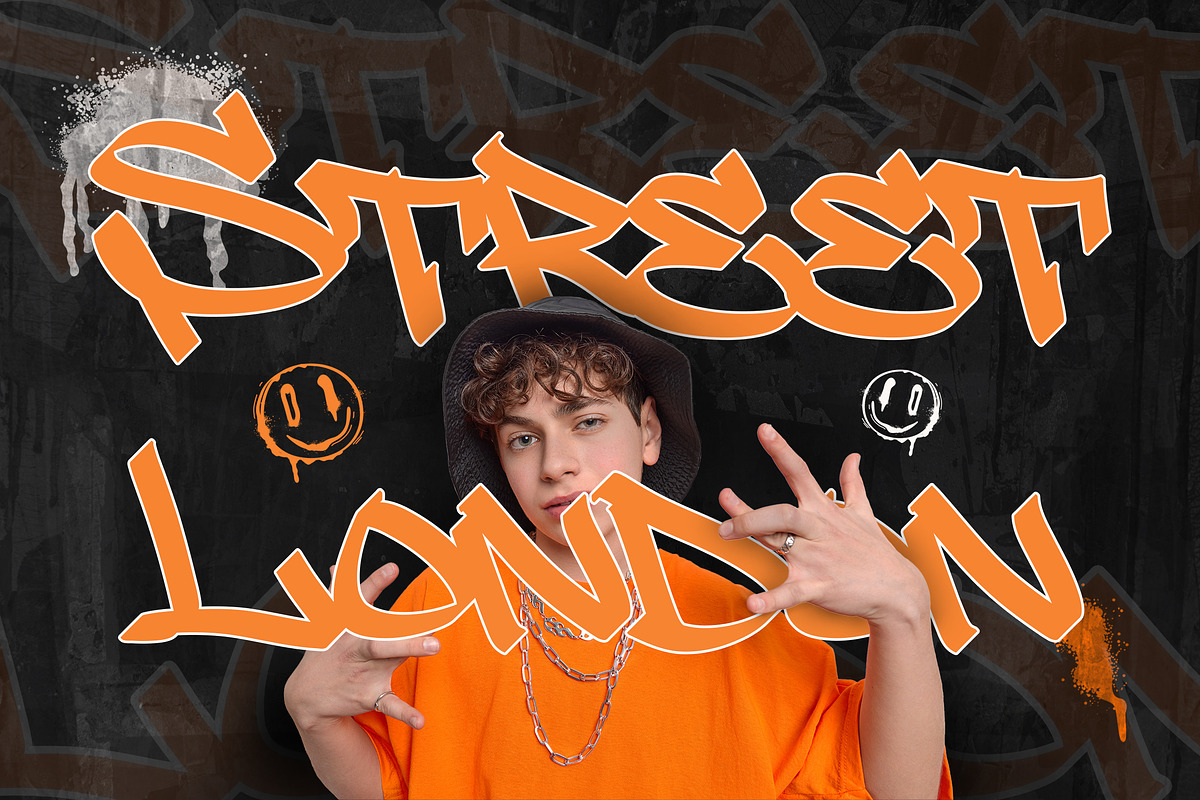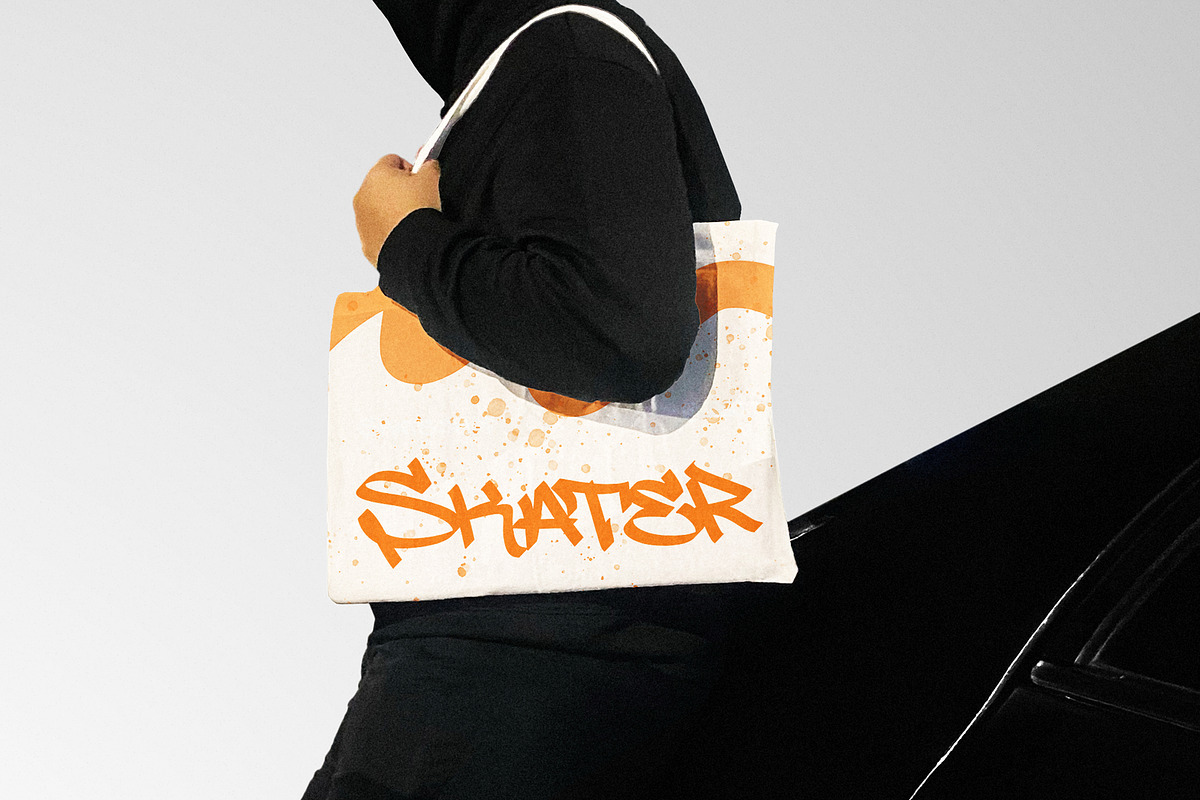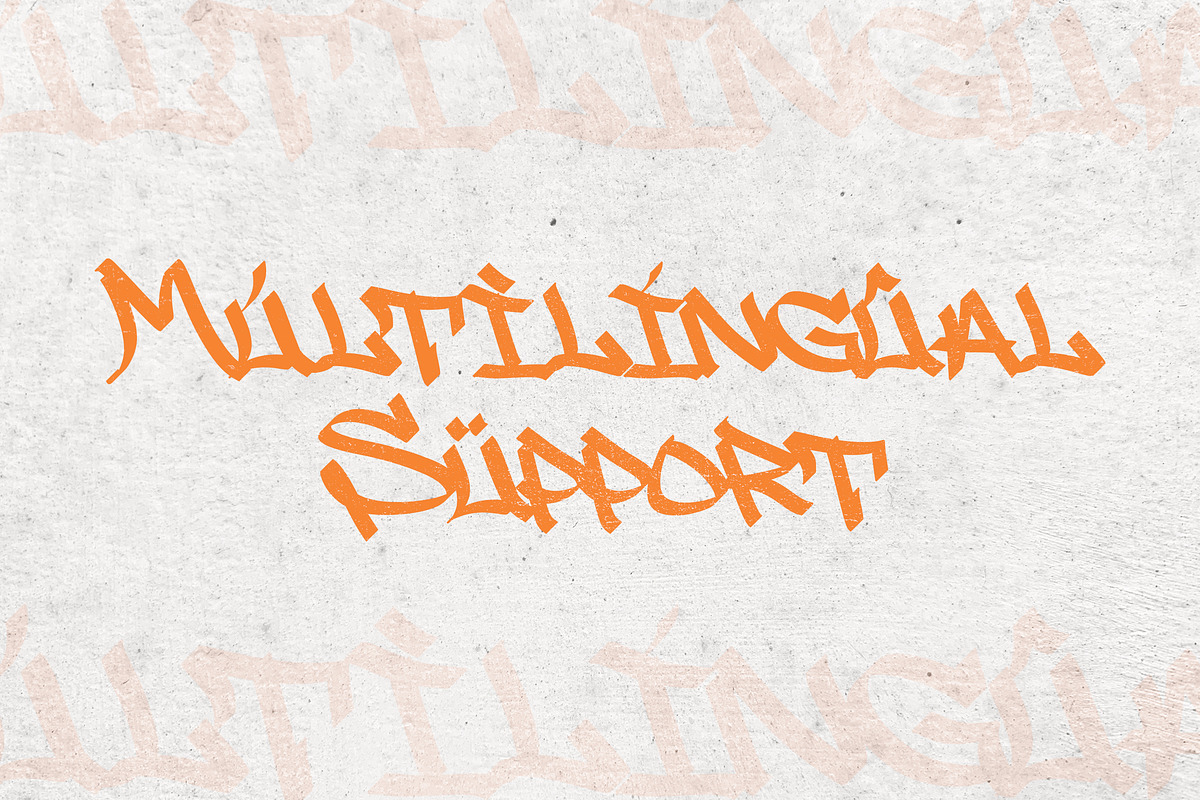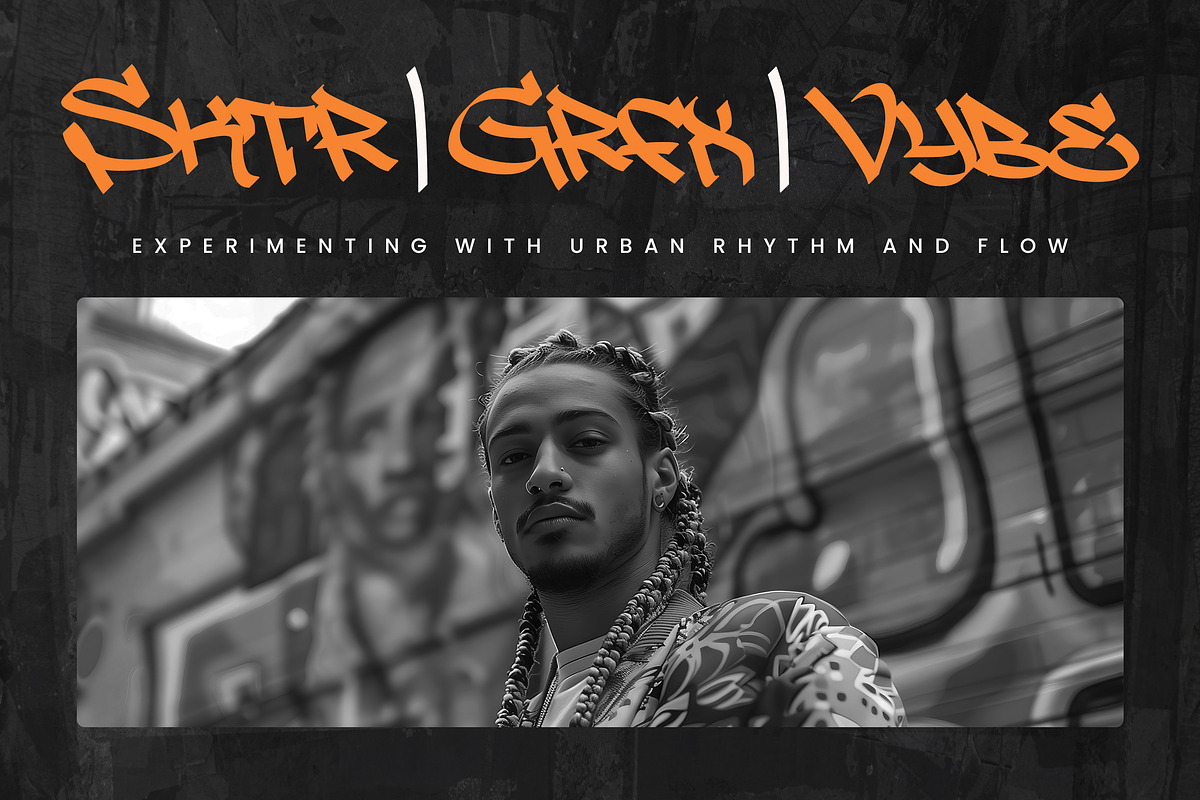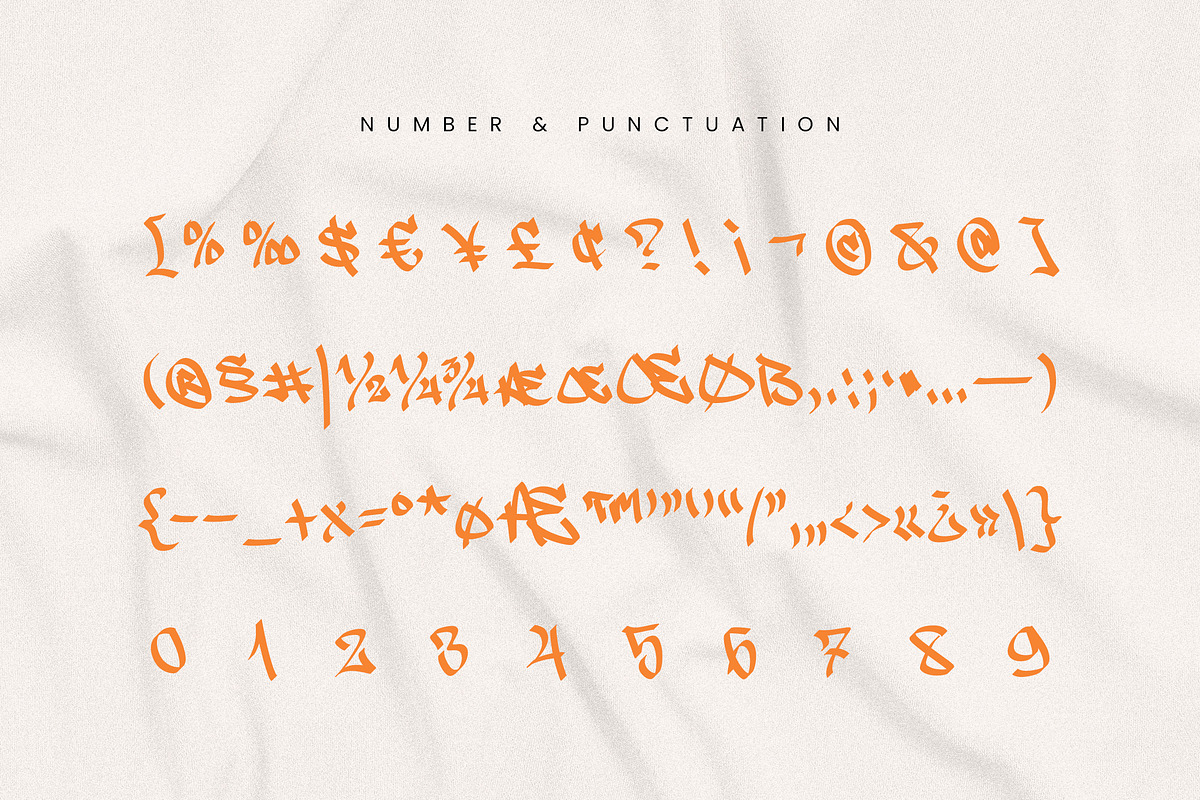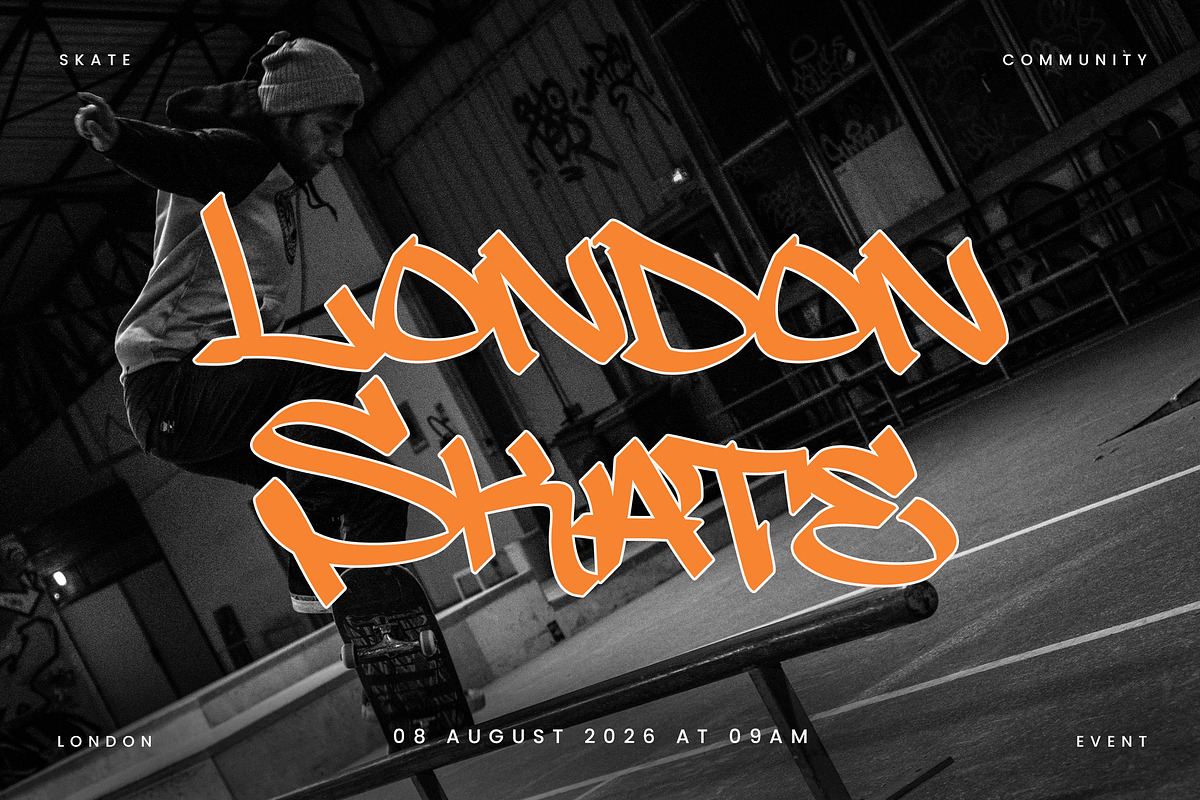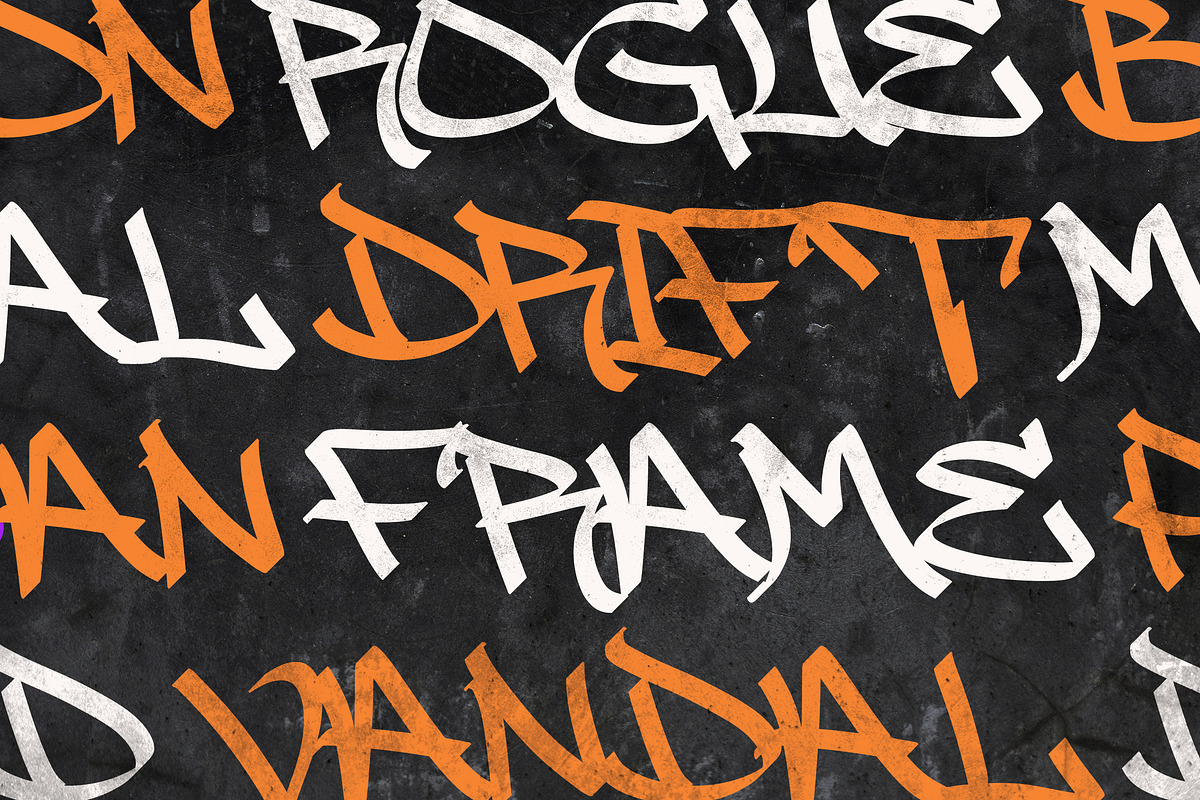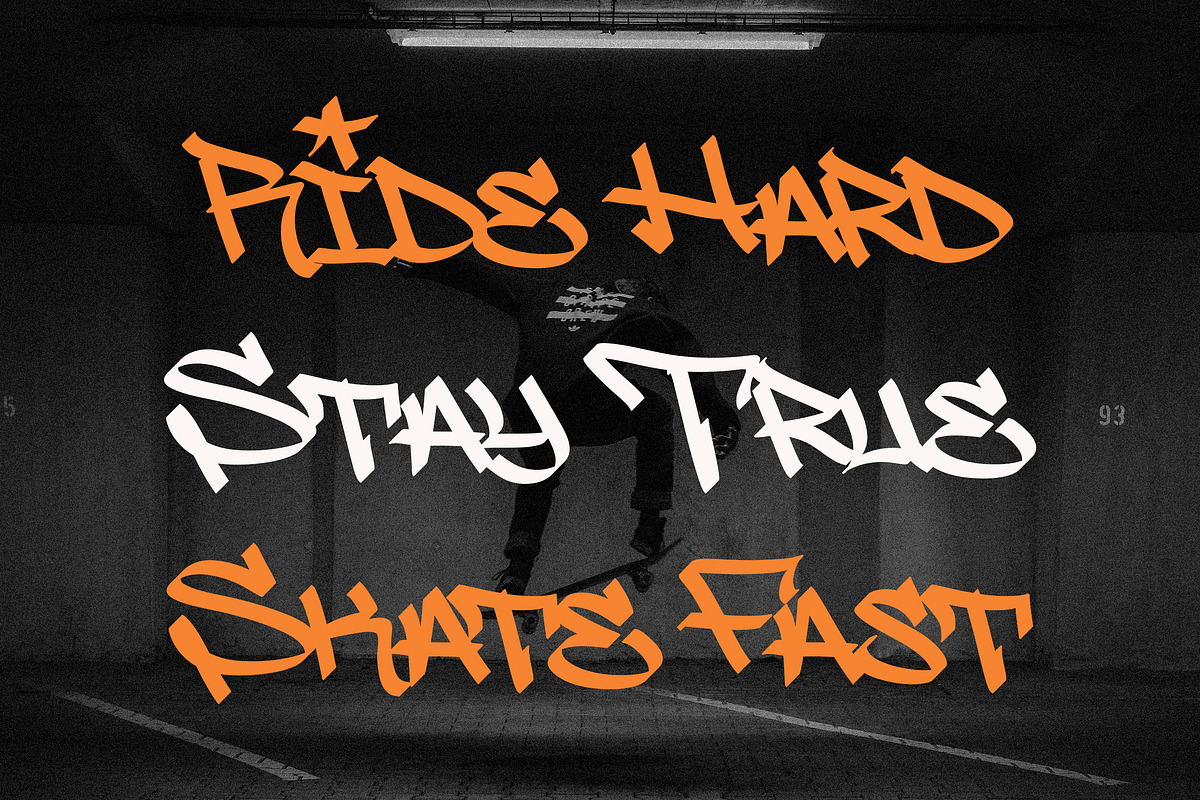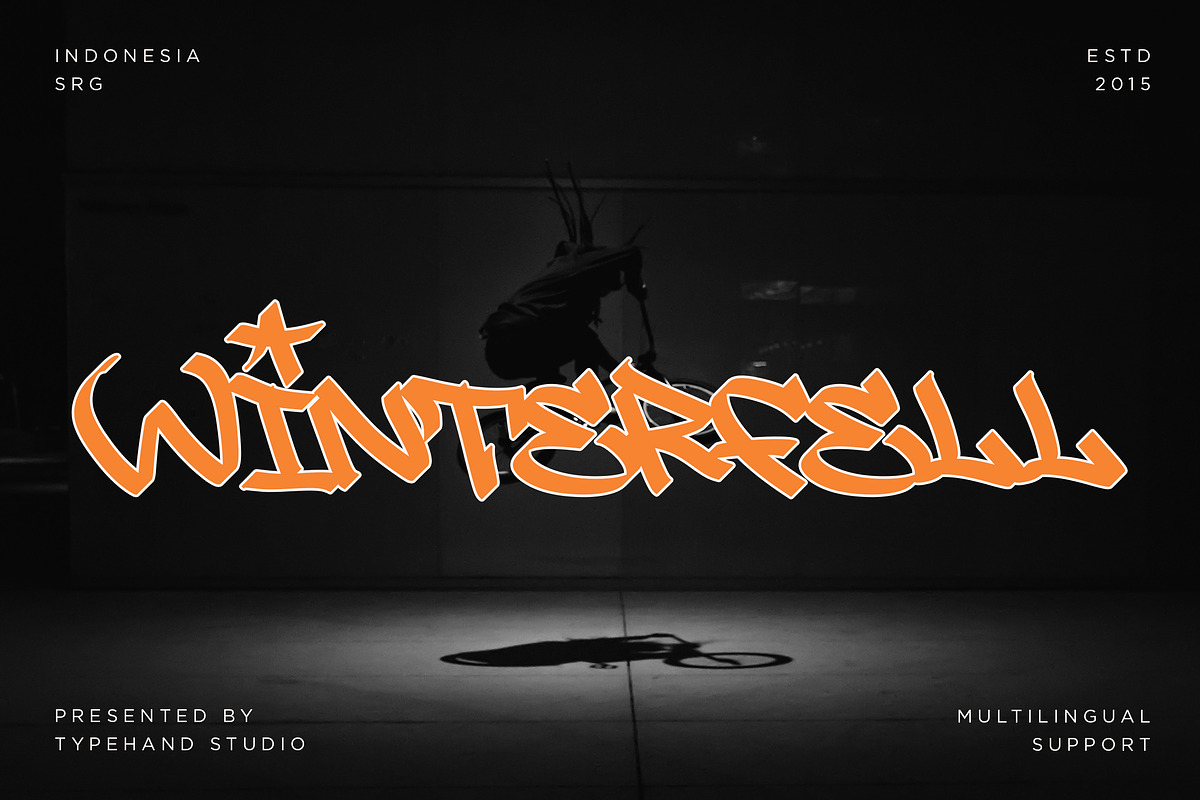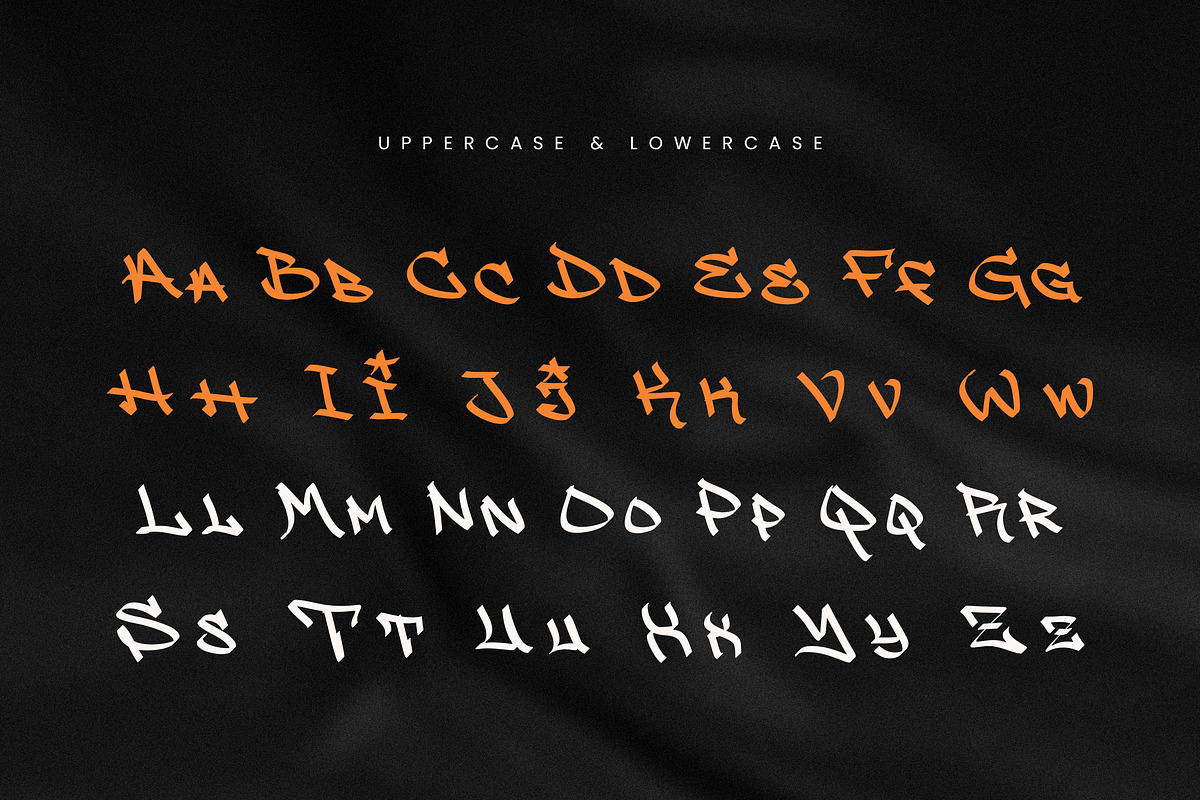
Winterfell – Urban Graffiti Display
Winterfell is a bold urban graffiti typeface inspired by real street tagging, skate culture, and underground city aesthetics. Built with sharp angular strokes and dynamic marker-style movement, this typeface delivers authentic street energy with strong visual impact.
As seen in the previews, Winterfell stands out through its aggressive letterforms, natural handwritten rhythm, and high-contrast outline effect that makes every word pop on dark backgrounds. The expressive construction gives your design a raw yet controlled look — rebellious but readable.
Designed for creatives who want attention, not subtlety.
Perfect for streetwear branding, skate event posters, music artwork, esports visuals, album covers, youth campaigns, and bold logo design. Winterfell works exceptionally well for large display settings where personality matters more than neutrality.
Uppercase and lowercase characters maintain consistency while preserving that organic street feel. Multilingual support ensures flexibility across global projects.
If your project needs edge, motion, and urban identity — Winterfell delivers it without compromise.